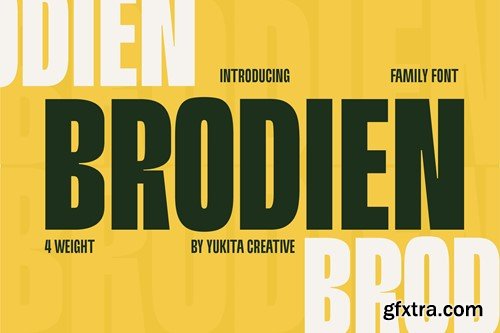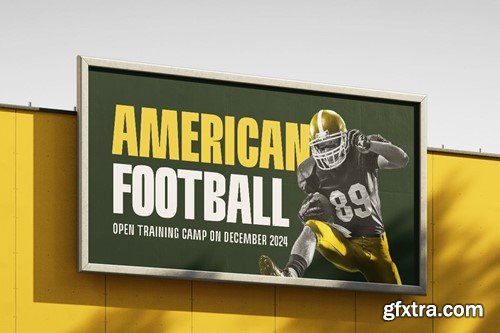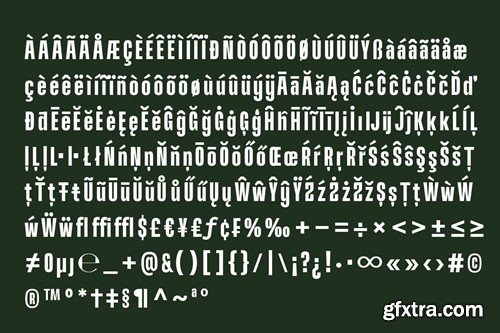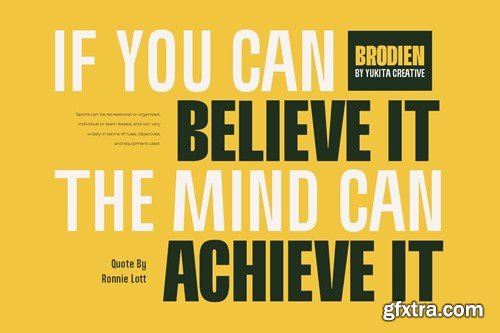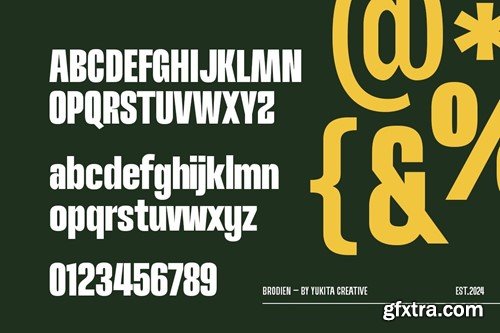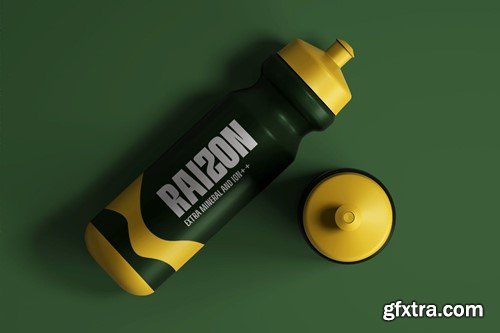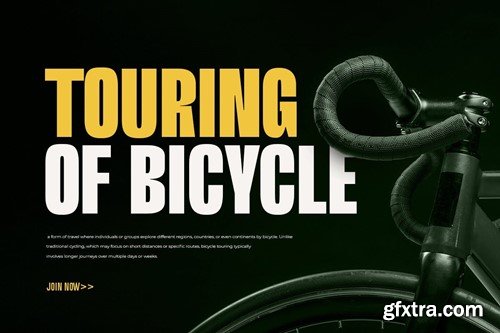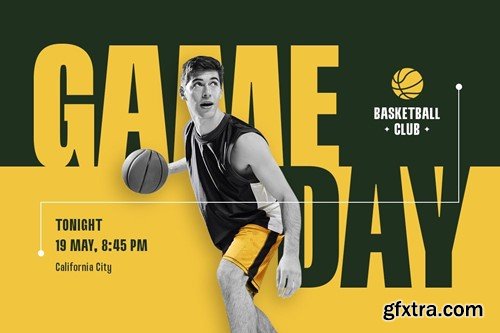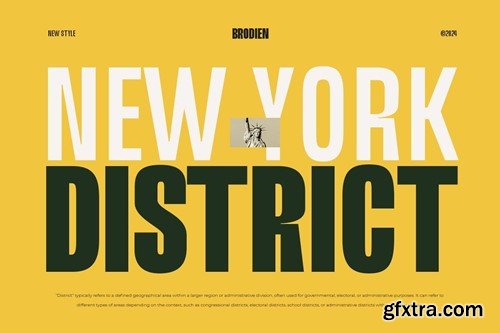
Brodien Condensed Font
Brodien Condensed is an attractive and versatile font, with its four weights offering wide design flexibility. With a clean and modern feel, this font is suitable for a variety of graphic design projects, from logo designs to marketing materials. Brodien Condensed is a versatile font with four weights: Regular, Medium, Semi-Bold, and Bold. With a modern feel and good readability, it is suitable for a variety of graphic designs from small text to large titles.